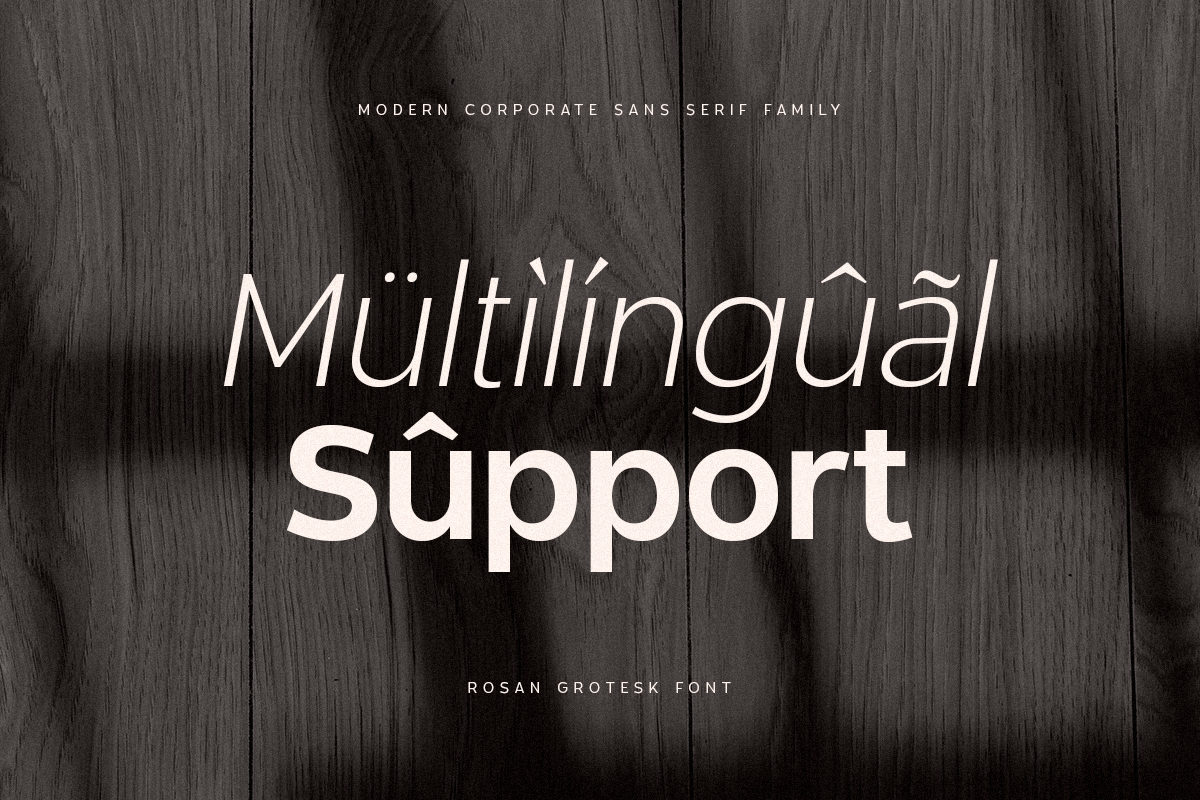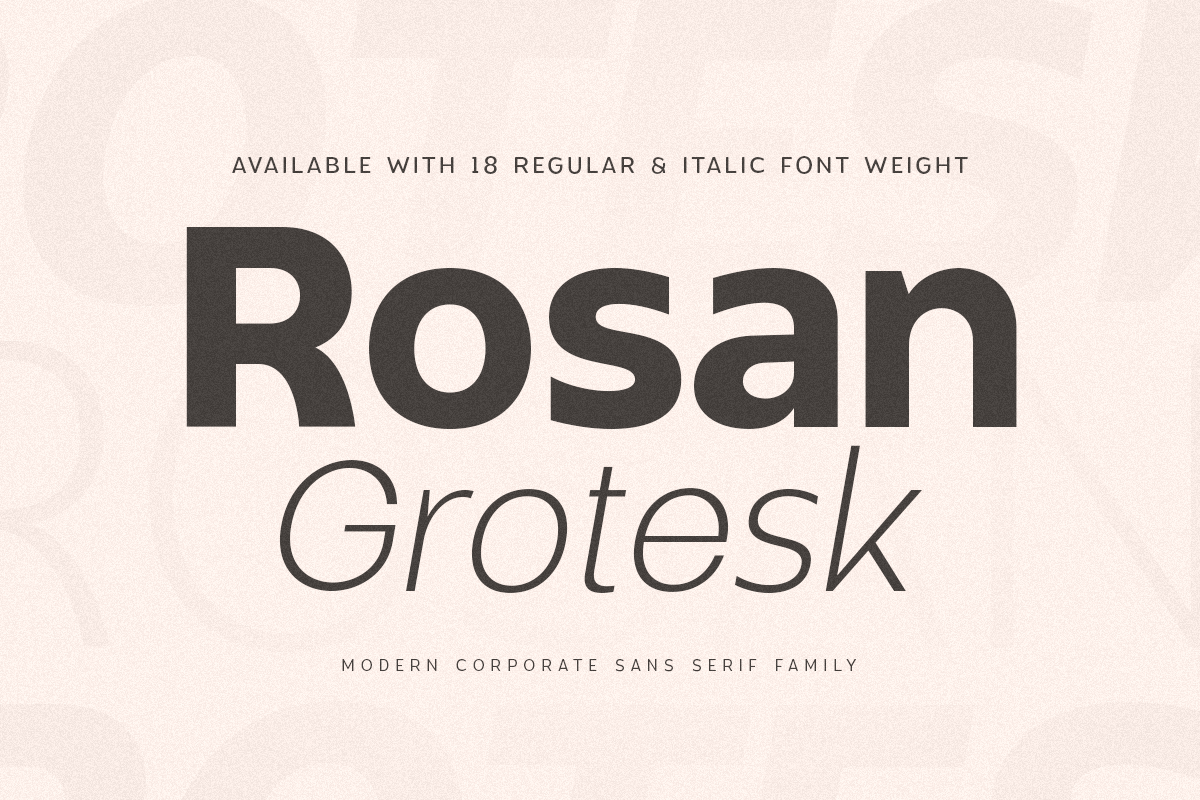
Rosan Grotesk
-Modern Humanist Font
Rosan Grotesk is a Humanist Modern Sans Serif Font Family that's well-balanced modern font with a minimalist, unique, and premium sans serif, font that you can combine to get any variations and unique shapes easily just in seconds with choose alternates of them. It is a sans serif font with minimalist style that perfect for branding projects, logo, poster designs, social media posts, advertisements, product packaging, product designs, label, photography, watermark, invitation, stationery, and any projects, it makes with a high level of legibility.